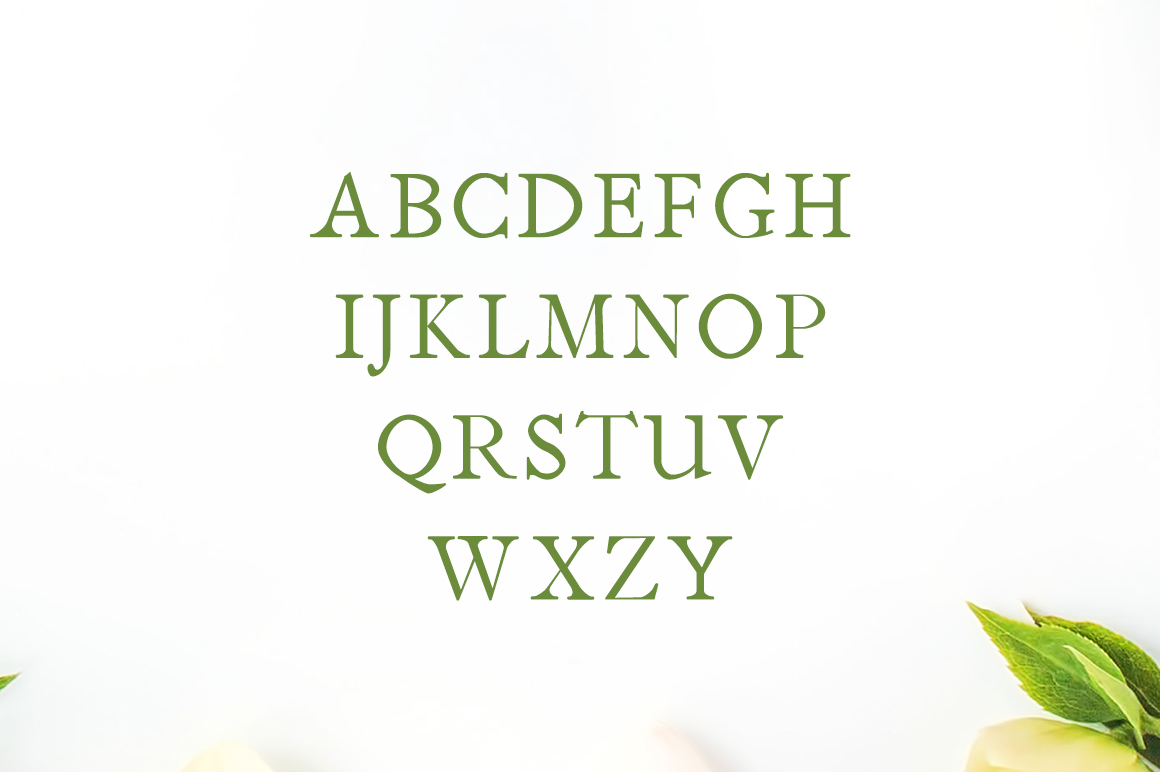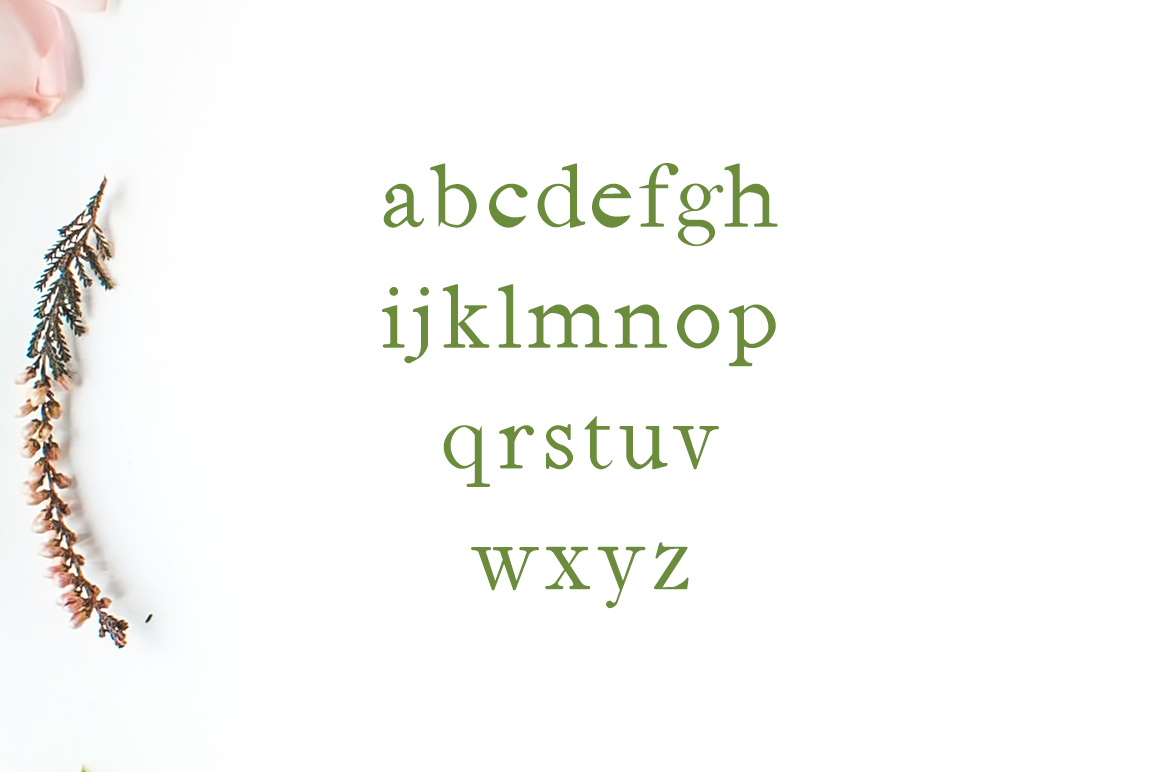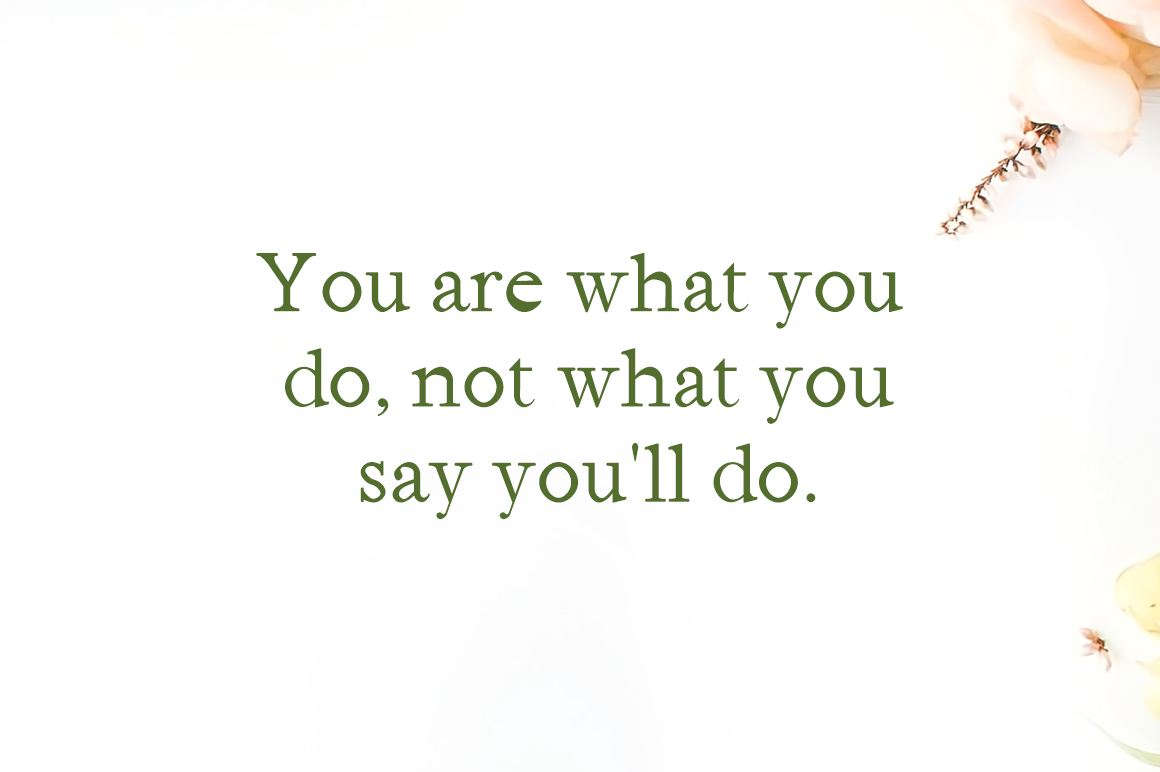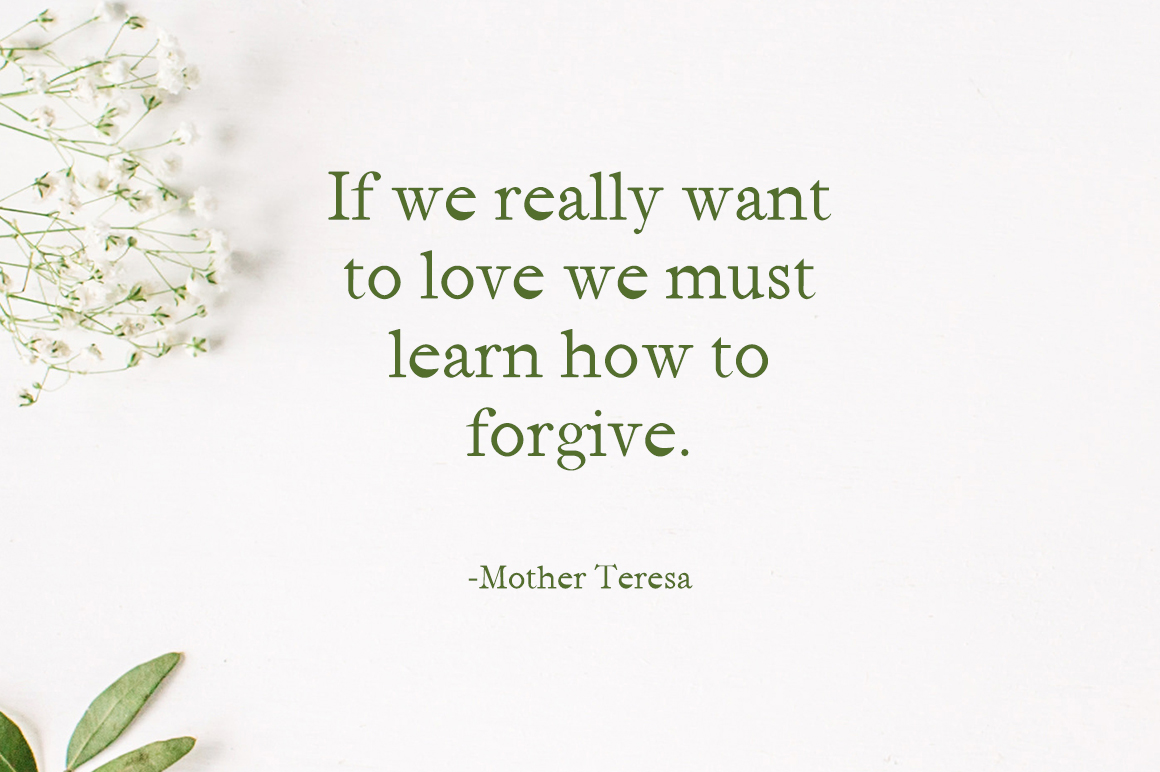
Introduction to Jerricca Font
As designers, we’ve all been there – staring at a blank canvas, trying to bring our creative vision to life. The perfect font can make all the difference, transporting our designs from bland to grand. And today, we’re excited to introduce you to Jerricca Font, a beautiful, earthy serif font that’s about to become your new go-to design resource.
With its unique, uneven strokes and high-quality texture, Jerricca Font adds a touch of warmth and tradition to any design. Whether you’re working on a creative project that requires a rustic feel or simply want to add some personality to your branding, this font is sure to impress. And the best part? It’s available for free download, complete with a transparent background, making it easy to integrate into your design workflow.
Key Features of Jerricca Font
- High-quality font design, ideal for creative projects requiring a unique touch
- Designed with a modern aesthetic, perfect for use in graphic design, digital art, and other creative endeavors
- Features a clean and elegant design, suitable for a wide range of applications, from logos to typography-based art
Honest Review: Jerricca Font
I recently stumbled upon the Jerricca Font, a high quality design resource that I’m excited to share with fellow designers. As a design enthusiast, I always look for fonts that can elevate my creative projects to the next level.
- ✨ High quality vector design: The Jerricca Font features intricate details and smooth lines, making it perfect for various design applications.
While the Jerricca Font excels in many areas, I did encounter a few limitations:
- ⚠️ Limited font styles: The font is available in a single style, which might not be suitable for designers who prefer a more extensive font family.
- ⚠️ Limited character set: The font’s character set is limited, which might cause issues for designers working with non-English text.
Overall, I’m impressed with the Jerricca Font’s high quality design and free download option. While it may have some limitations, I believe it’s a great resource for designers working on creative projects that require a touch of elegance and sophistication.
Tips for Getting the Most Out of Jerricca Font
Experiment with different font sizes, styles, and combinations to achieve a unique look for your creative project. Consider using the font in conjunction with other design elements, such as graphics and images.
The Jerricca Font is suitable for a variety of projects, including:
- Print and digital marketing materials